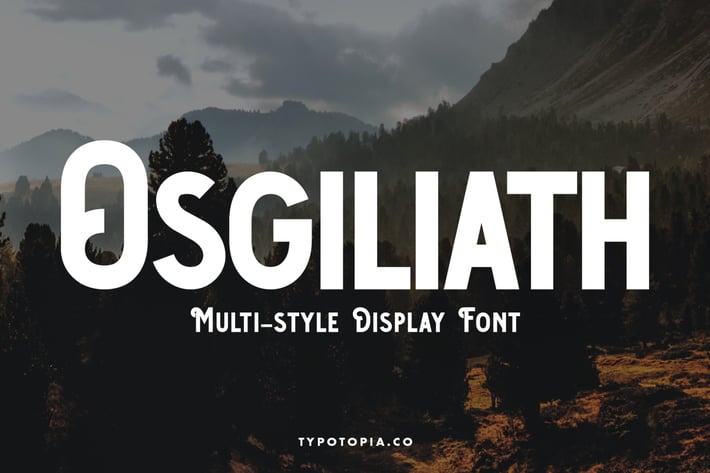
Osgiliath Multistyle Display Font
Introducing Osgiliath Multistyle Display Font. This perfect for the purposes of designing templates, brochures, videos, advertising branding, logos and more.